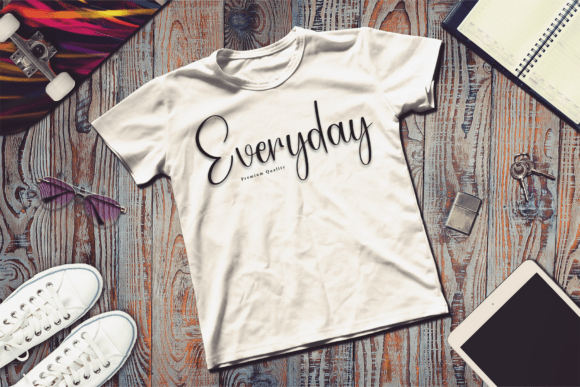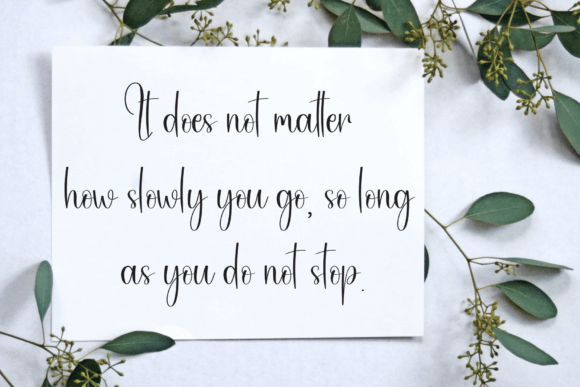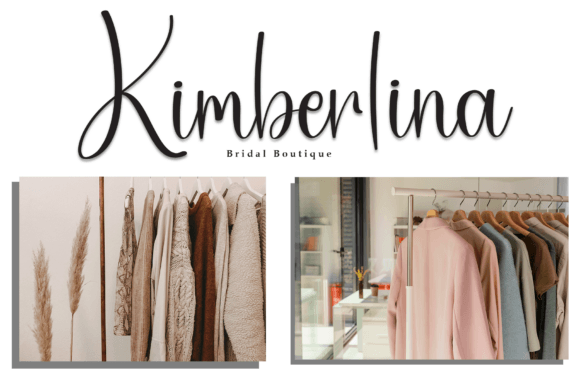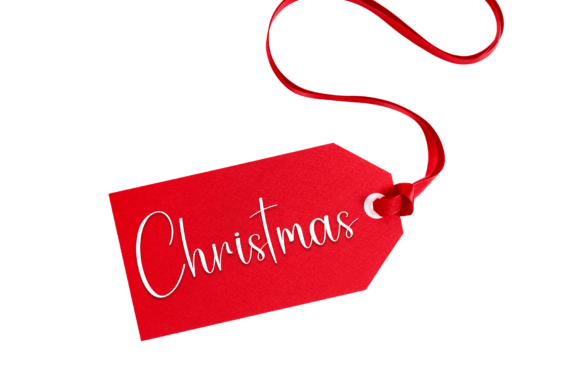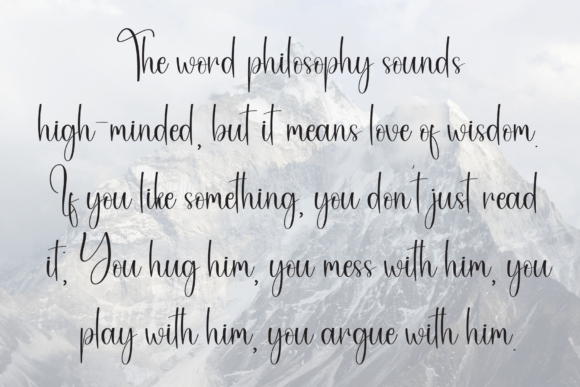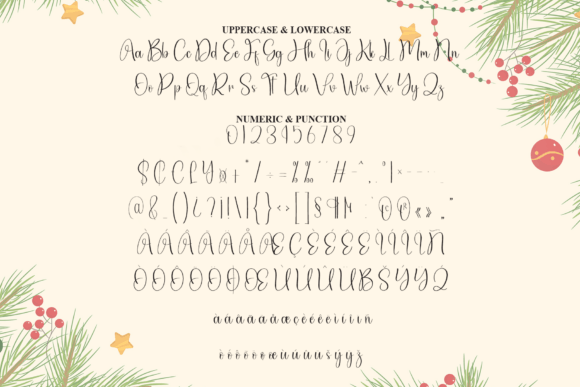
Great Christmas Font: Add a Touch of Whimsy to Your Holiday Designs
Are you looking for a font that embodies the warmth and joy of the holiday season? Look no further than our Great Christmas Font! This charming and warm handwritten display typeface is perfect for adding a touch of cordiality and delight to your designs. In this article, we’ll explore the features and benefits of our Great Christmas Font and how it can elevate your holiday projects.
A Font that Captures the Essence of Joy and Friendliness
Our Great Christmas Font is designed to personify joy and friendliness, making it an ideal choice for any design that needs a captivating and fun-filled twist. With its lively and fun design, this font perfectly complements creations like wedding invitations, greeting cards, and holiday-themed projects. Whether you’re a designer, crafter, or DIY enthusiast, our Great Christmas Font is sure to bring a smile to your face and add a touch of whimsy to your designs.
Perfect for Holiday Designs
The holiday season is a time for joy, giving, and celebration. What better way to capture the spirit of the season than with a font that’s specifically designed to evoke feelings of warmth and festivity? Our Great Christmas Font is perfect for a wide range of holiday designs, including:
- Holiday greeting cards and invitations
- Christmas party decorations and flyers
- Gift tags and wrapping paper
- Holiday-themed website headers and banners
Key Features of Great Christmas Font
So what makes our Great Christmas Font so special? Here are just a few of its key features:
- Handwritten display typeface: Our Great Christmas Font is a unique, handwritten display typeface that’s designed to add a touch of personality to your designs.
- Lively and fun design: With its lively and fun design, this font is perfect for adding a touch of whimsy to your projects.
- Perfect for cordial and delightful designs: Our Great Christmas Font is designed to capture the essence of cordiality and delight, making it perfect for designs that need a friendly and approachable feel.
Tips for Using Great Christmas Font
Here are a few tips for using our Great Christmas Font in your designs:
- Use it as a headline font: Our Great Christmas Font is perfect for use as a headline font, adding a touch of personality and whimsy to your designs.
- Pair it with a simple font: For body text, pair our Great Christmas Font with a simple font to create a beautiful contrast.
- Experiment with colors and textures: Don’t be afraid to experiment with different colors and textures to add depth and interest to your designs.